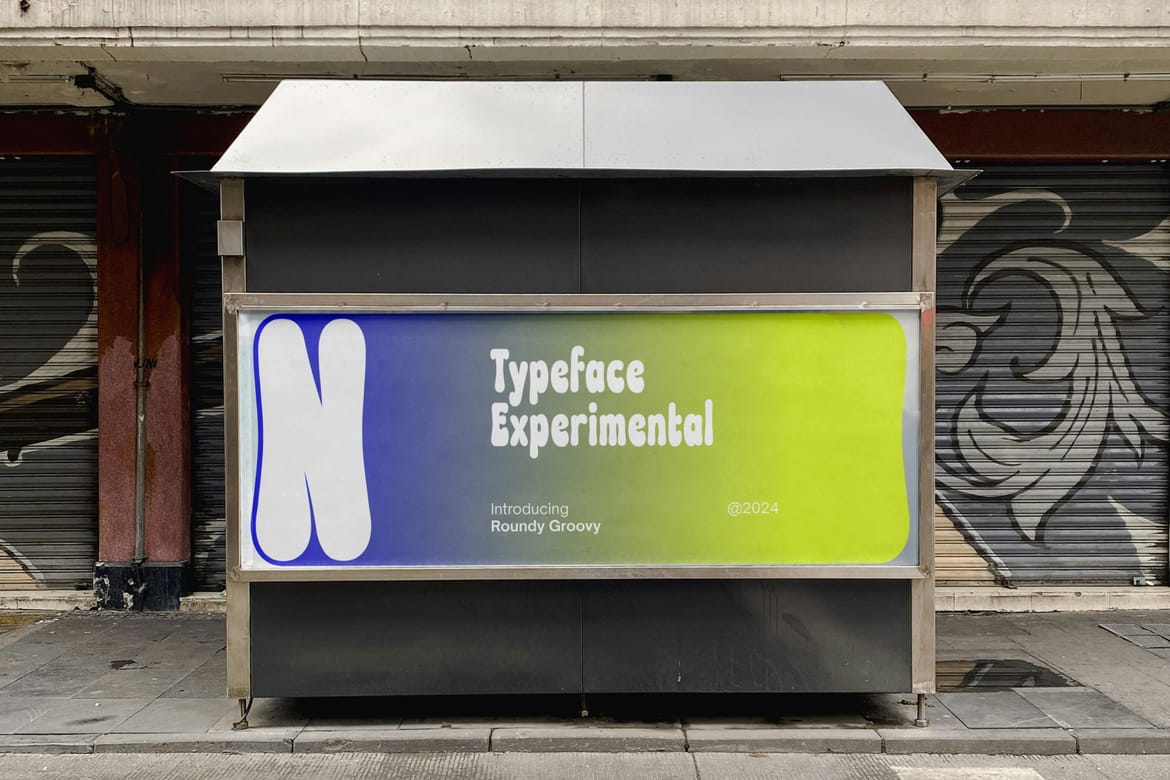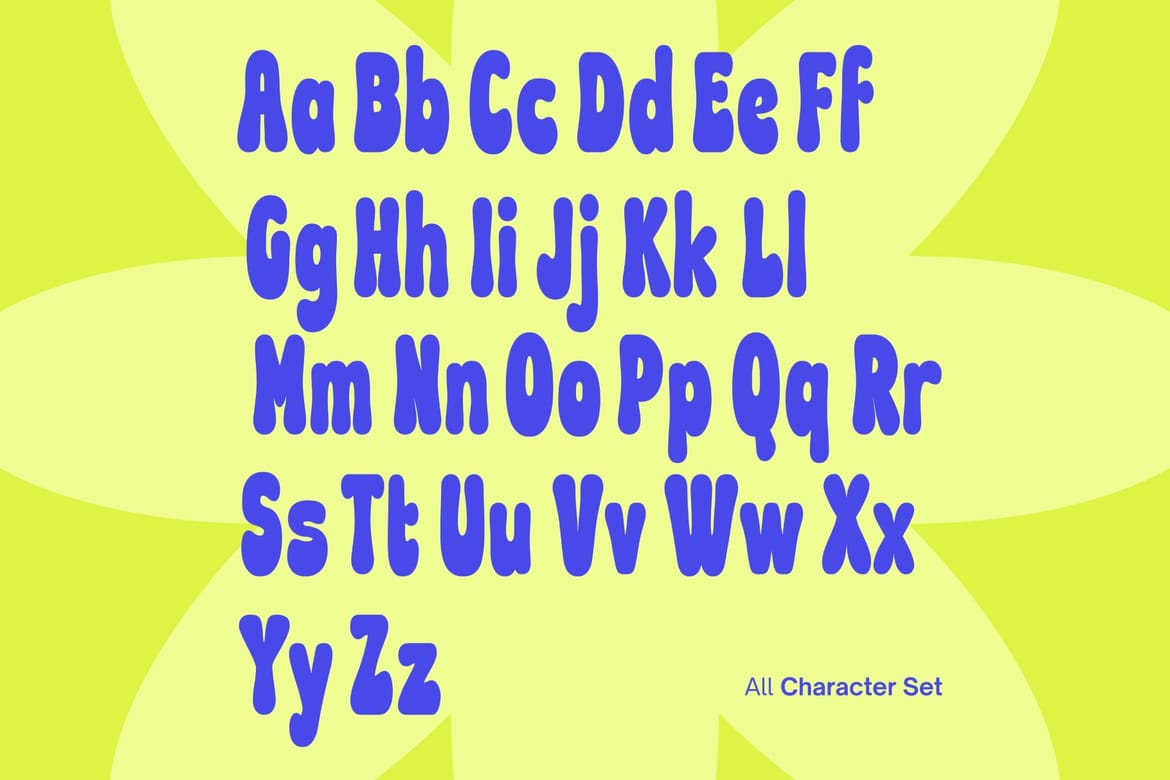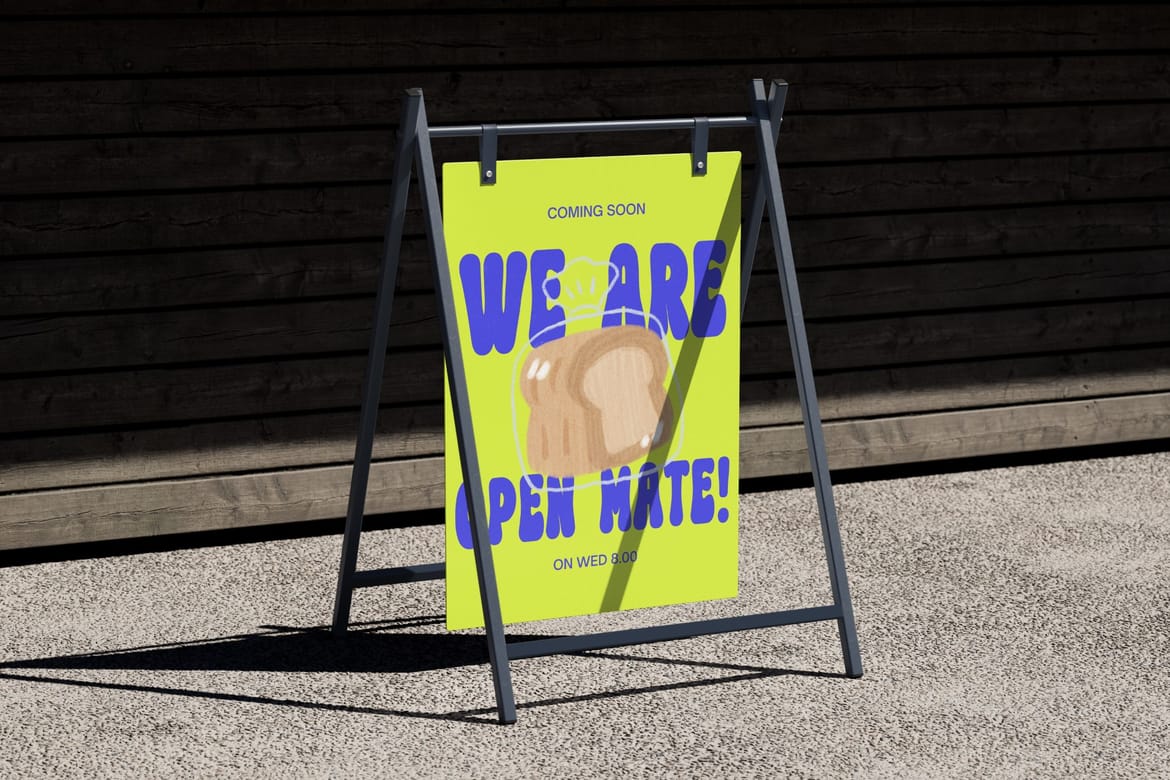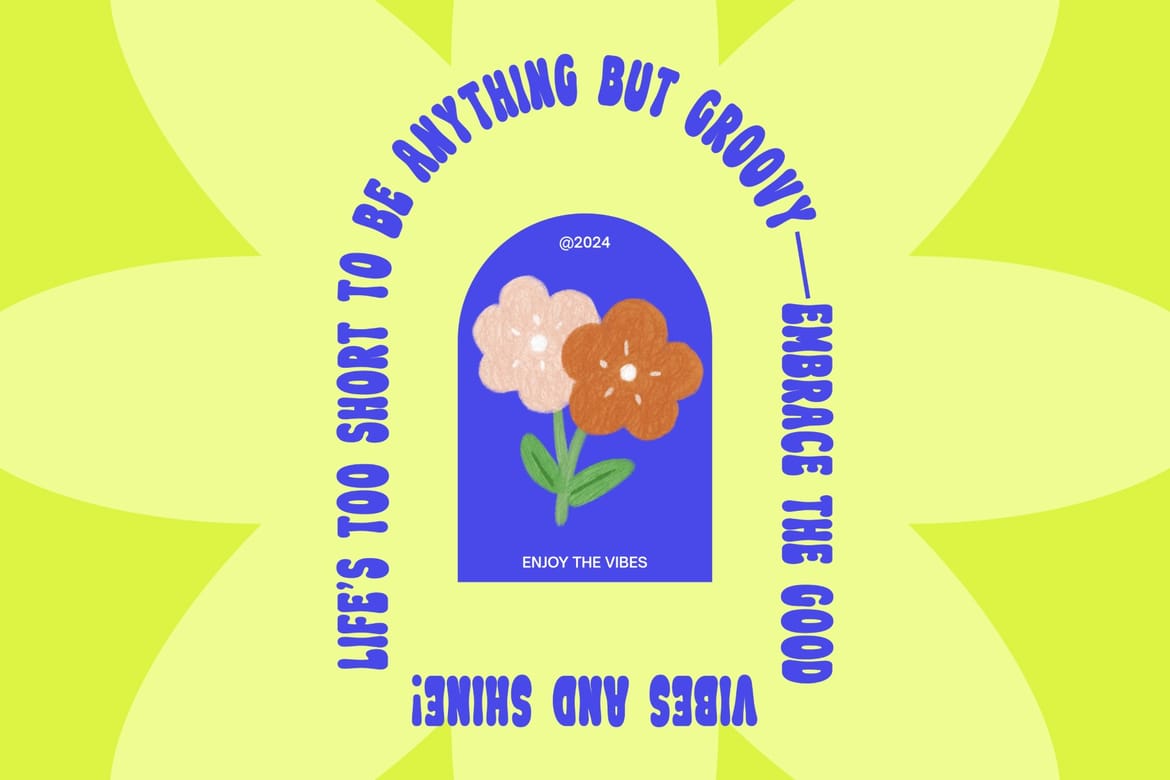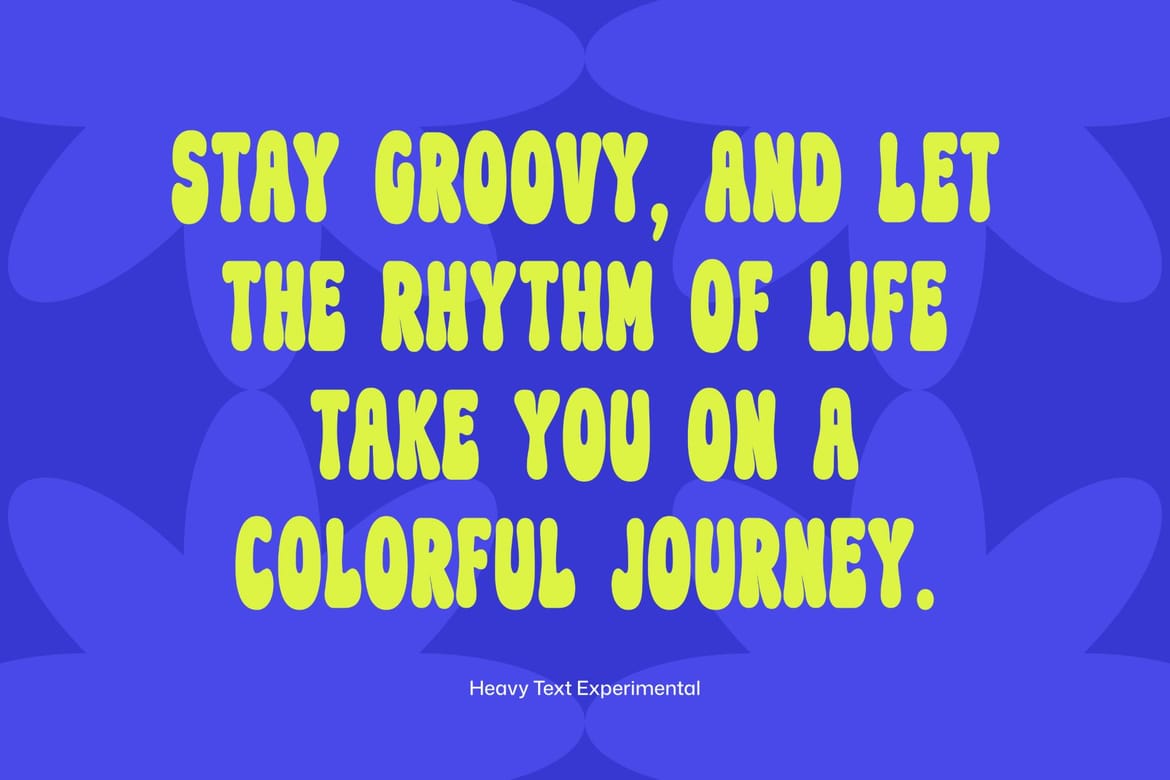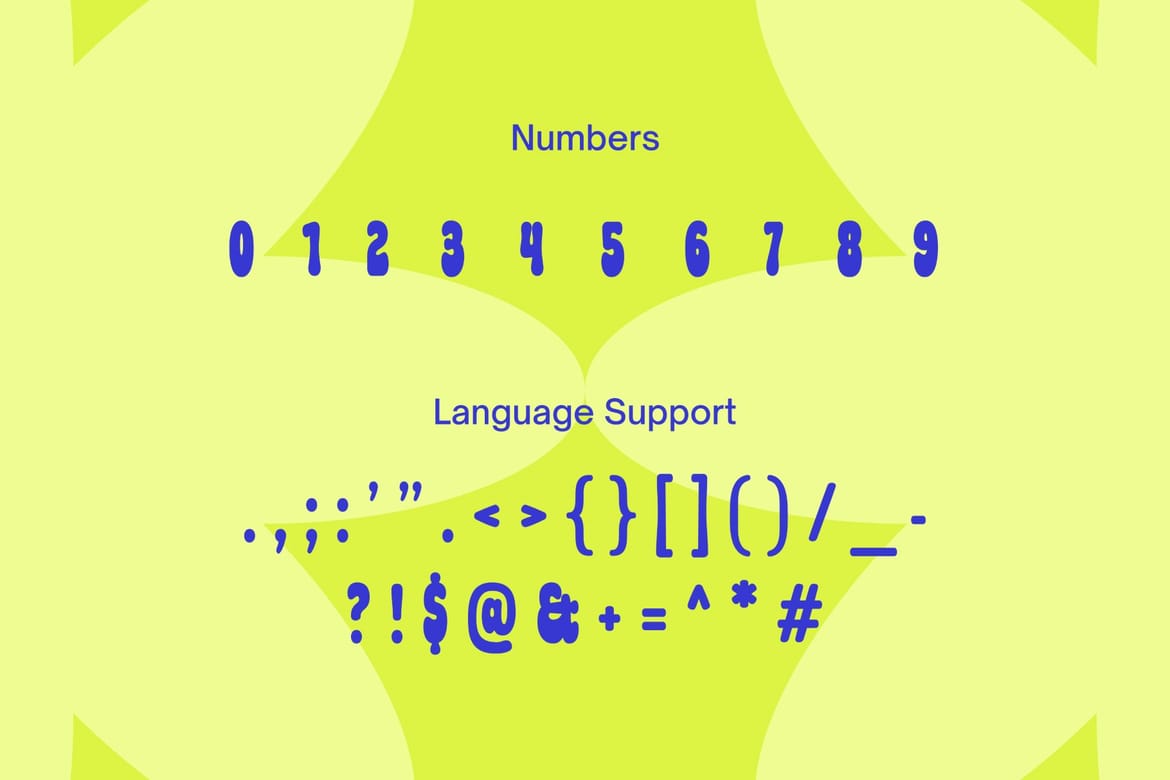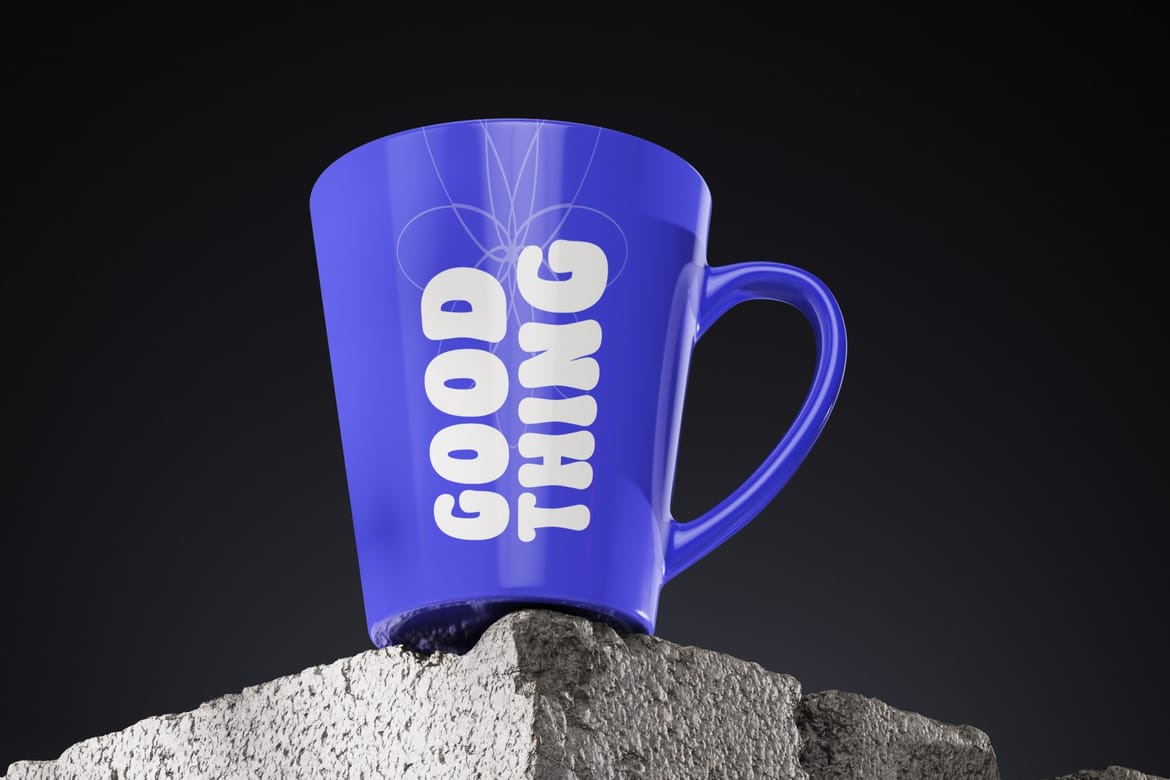
Roundy Groovy is a fun and playful display font inspired by fruits like mangoes and lemons. Its smooth, circular characters and bold design will add a touch of retro charm to your designs. This versatile font is perfect for creating logos, signage, packaging, menus, and more! Let Roundy Groovy bring a slice of sunshine to your next project.
Groovy bubbly display with a playful psychedelic vibe
Perfect for music posters, retro branding, and cheerful creative projects
Rounded organic letterforms create a fun nostalgic personality with strong visual charm